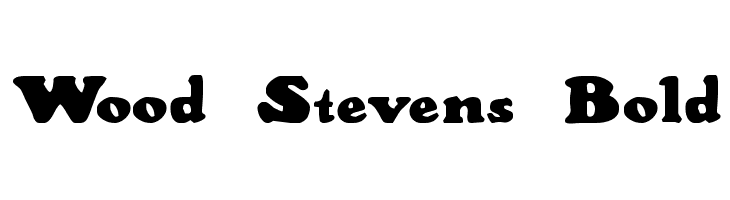
( Fonts by Darrell Flood )
A bold, rounded font with a playful and chunky style.
( Fonts by Florian Karsten )
A modern, geometric sans-serif font with clean lines and balanced spacing.
( Fonts by softerviews.org )
A modern, italic sans-serif font with clean lines and a dynamic slant.
( Fonts by www.aenigmafonts.com )
A futuristic, hollow, and rounded font with a geometric design.
( Jimmy Campbell )
A retro, pixelated font with a classic 8-bit video game style.
A bold, geometric font with a futuristic and impactful design.
( Sansita Swashed is designed by Pablo Cosgaya (Omnibus-Type) and developed by Aldo De Losa )
A playful, bold font with elegant swashes and strong visual impact.
( Fonts by Casady & Greene )
A bold, slab serif font with a rugged, vintage style.
A bold, angular font with a gothic flair, perfect for dramatic and impactful designs.
An elegant and flowing script font with a luxurious and refined style.
A modern, condensed sans-serif typeface with clean lines and uniform proportions.
( Fonts by Michele Vannucchi MKT )
A playful, bold outline font with rounded edges and uniform strokes.
( Fonts by Vladimir Nikolic )
A bold, futuristic font with a circuit-like pattern and strong contrast.
( ViactionType - Lukman Hidayat - www.myfonts.com/foundry/Viaction_Type/ )
A playful, handwritten script font with smooth, flowing lines.
( Fonts by Douglas Vitkauskas )
A bold, distressed font with a rugged, vintage appearance.
( Fonts by Graham Meade - GemFonts )
A bold, geometric font with sharp, angular letterforms.
A modern, angular font with geometric shapes and a dynamic slant.
( www.gabrielfam.com.br )
A playful, hand-drawn style font with bold, irregular strokes.
( Ferdiansyah - creativemarket.com/ijemrockart )
A bold, flowing script font with elegant, fluid strokes.
( Fonts by www.fugit-tempus.de )
A bold, modern serif font with high contrast and sharp serifs.